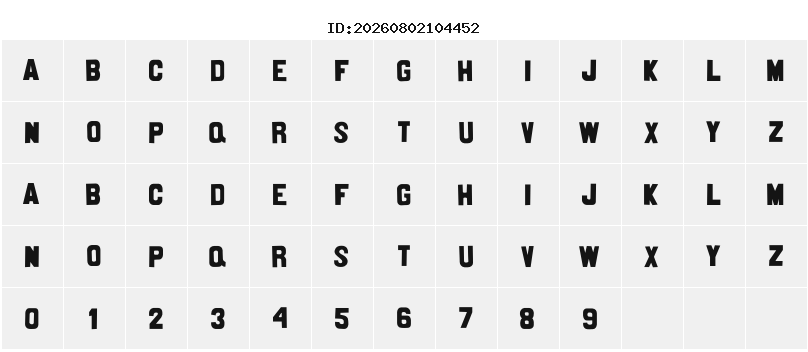
nittenaattifire Preview
• Font Name: nittenaattifire
• Designer: Espen M. Kvalheim
About nittenaattifire.otf
nittenaattifire.otf is a modern, elegant sans-serif font designed for ultimate readability and visual harmony. Perfect for branding, headlines, web design, and print materials.